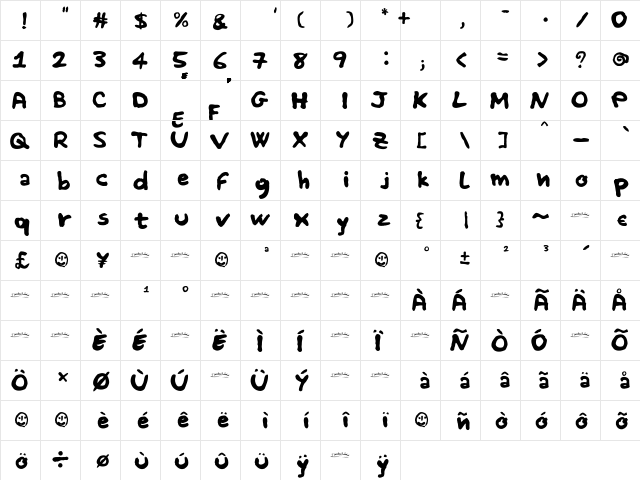
NataliaAndrea Regular
Design Context for NataliaAndrea Typeface
NataliaAndrea is a composed and adaptable typeface that performs quietly and consistently across a wide range of design contexts.